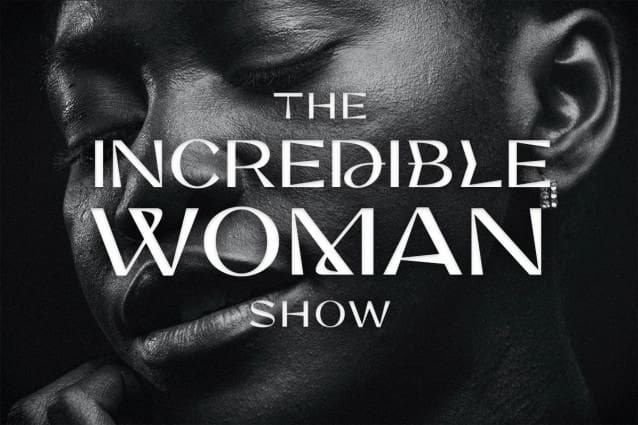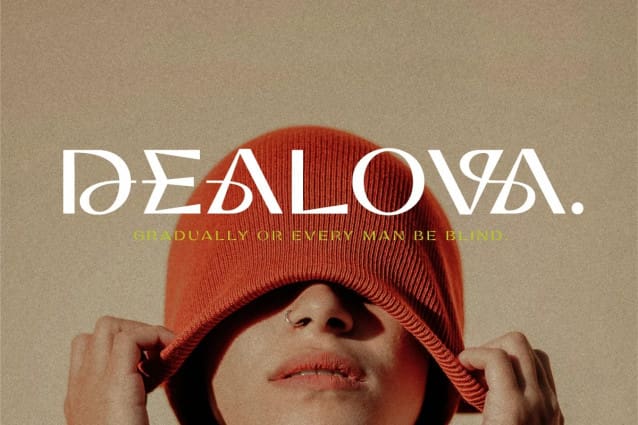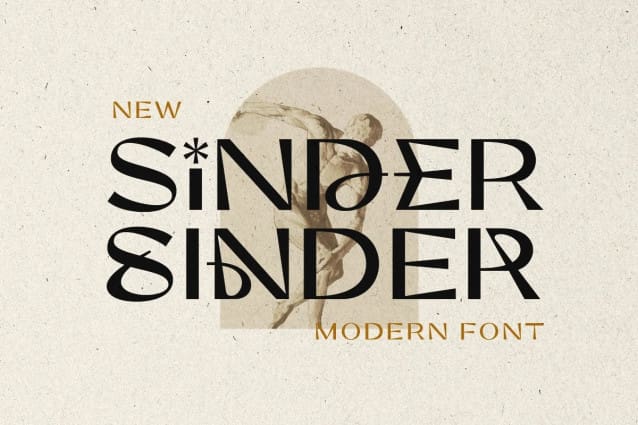
Sinder Font
Sinder Font is a modern and stylish sans based font. You can find the uniques from the forms in lowercase. You can combine the lowercase and uppercase to get more stunning and approachable design. You can use this font for poster, logotype, branding and get stunning and unusual looks. This font also support multilingual!